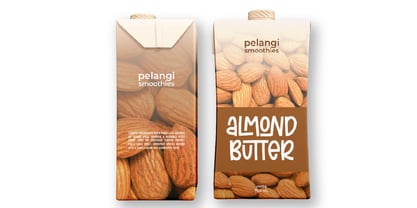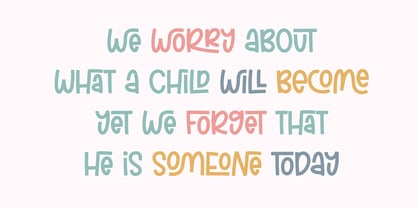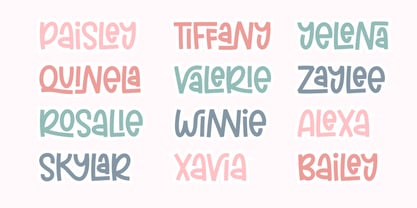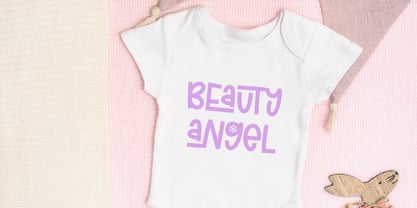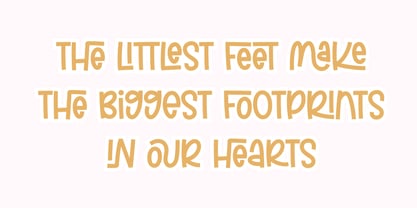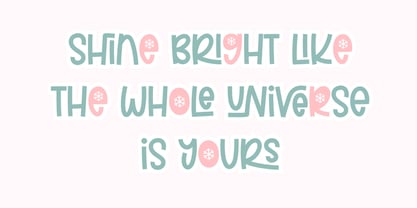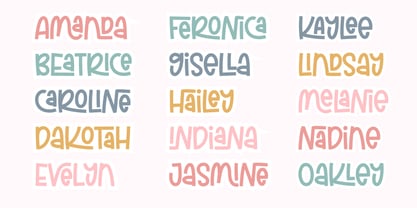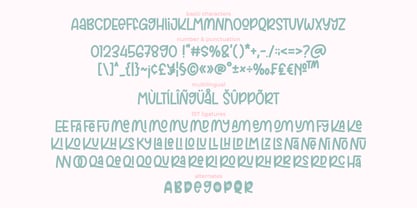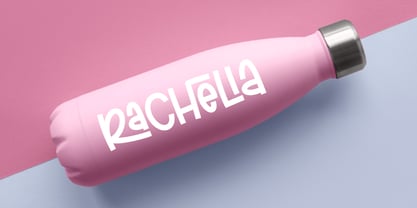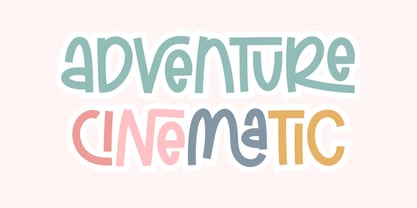
Caponara
by Abo Daniel
The Caponara Font Family was designed by Abo Daniel and published by Abo Daniel. Caponara contains 1 styles.
Caponara is a sweet handwritten font designed to bring warmth and personality into every word. With its bouncy strokes and playful rhythm, Caponara feels natural and expressive—like a happy note written by hand. What makes Caponara truly special is its 157 stunning ligatures, crafted to create smooth, charming connections that flow effortlessly across letters. These ligatures add delightful surprises to your text, making headlines, logos, and quotes feel more alive and lovingly composed. Perfect for branding, social media, packaging, invitations, and cheerful designs, Caponara adds a touch of cuteness without losing clarity. If you’re looking for a font that feels friendly, fun, and full of heart, Caponara is ready to make your designs smile.